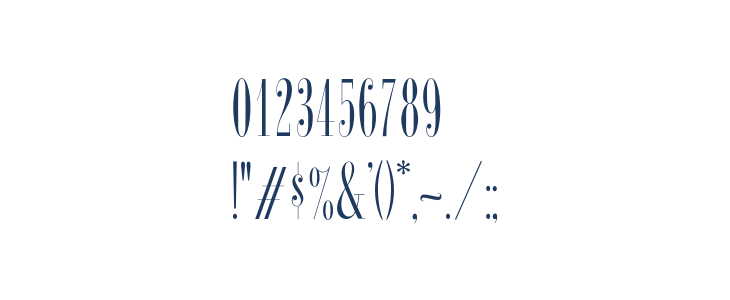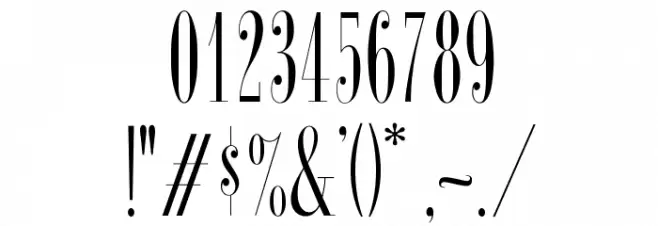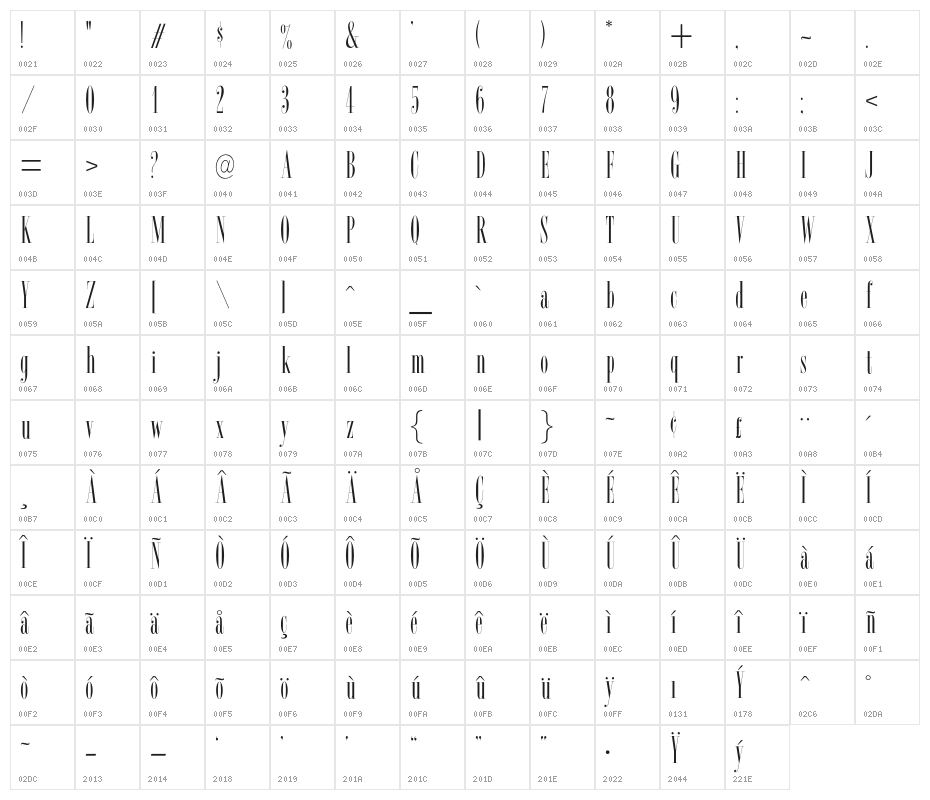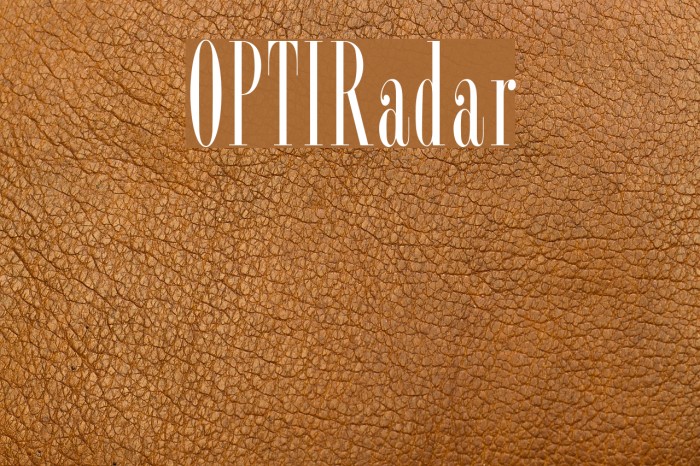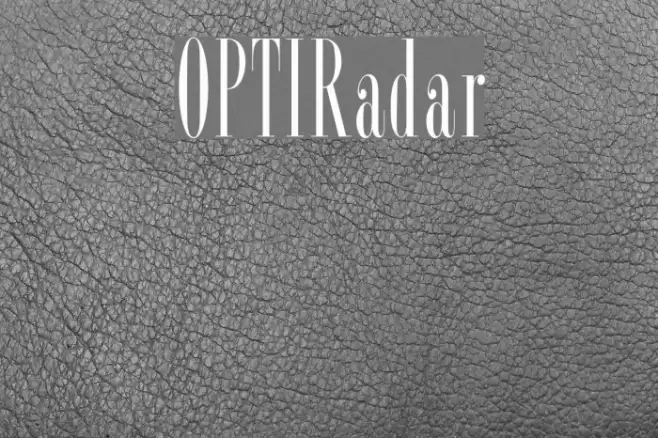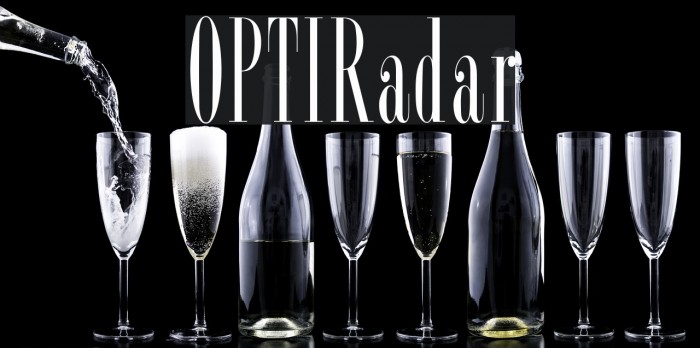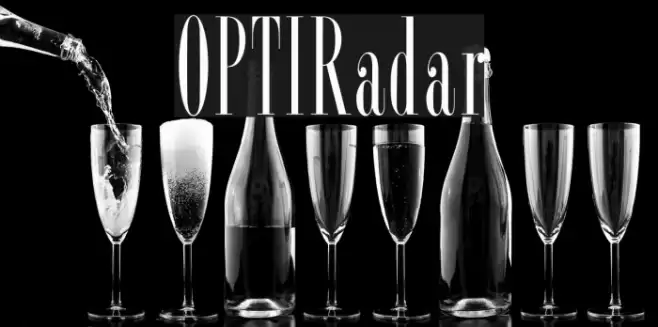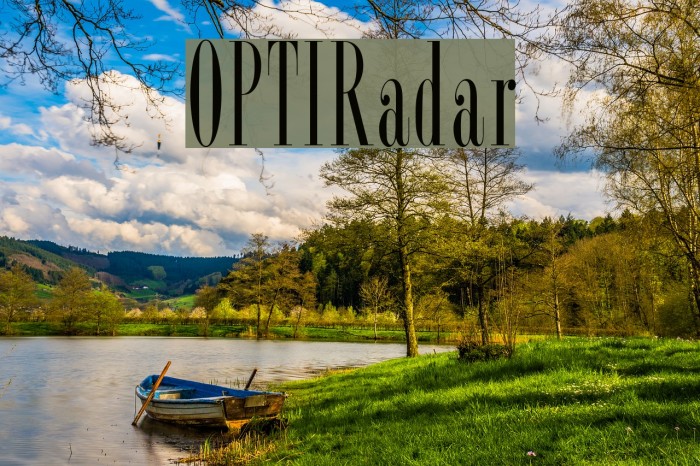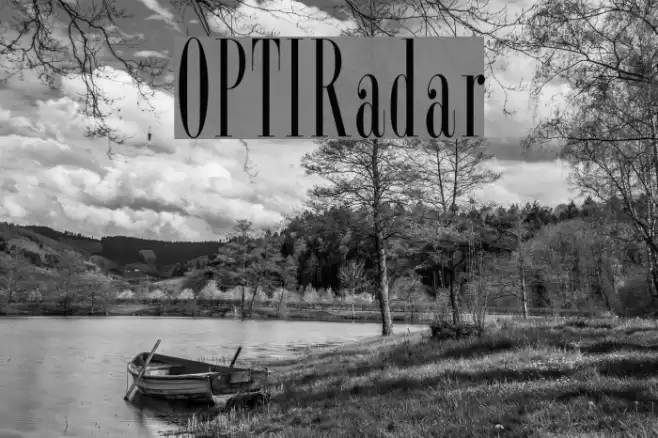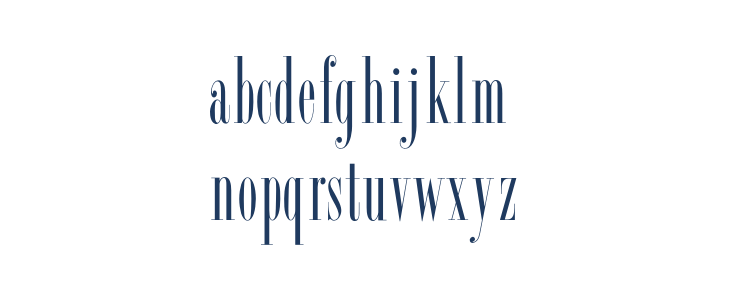
OPTIRadar Font
OPTIRadar Description
This font features a striking and elegant design with high contrast between thick and thin strokes, giving it a sophisticated and modern appearance. The characters are tall and narrow, with elongated serifs that add a touch of classic elegance. The uppercase letters are particularly prominent, making a bold statement, while the lowercase letters maintain a consistent style with a slightly more delicate touch. The numerals are clear and distinct, matching the overall aesthetic of the font. Special characters are well-integrated, maintaining the same high-contrast and elongated style. This font is ideal for creating a dramatic and stylish visual impact.
Proposed ProjectsIdeal for fashion magazines, luxury branding, wedding invitations, and editorial design.